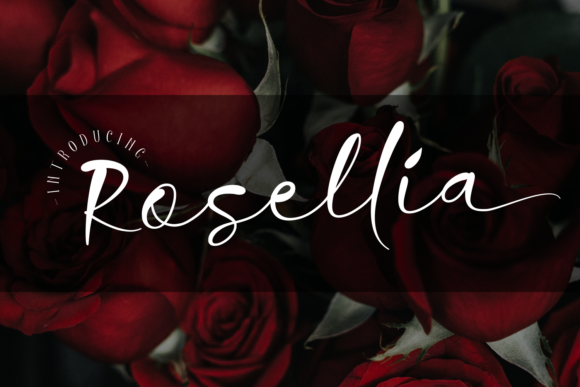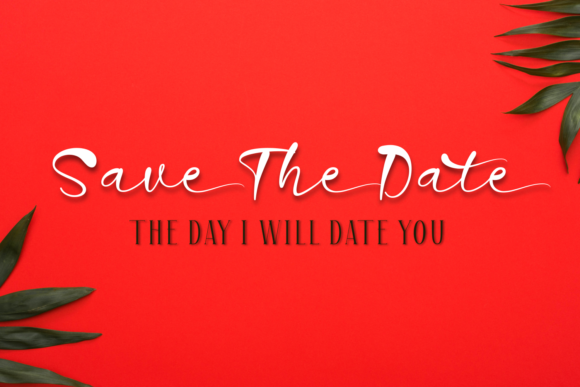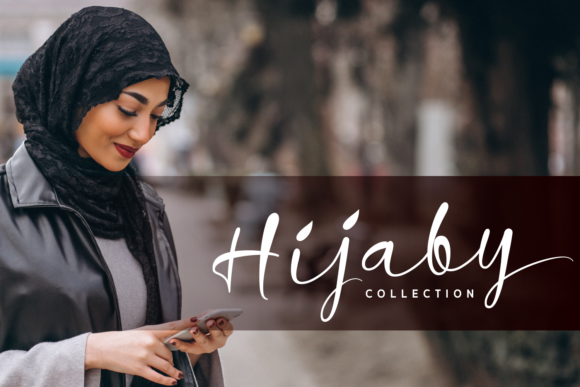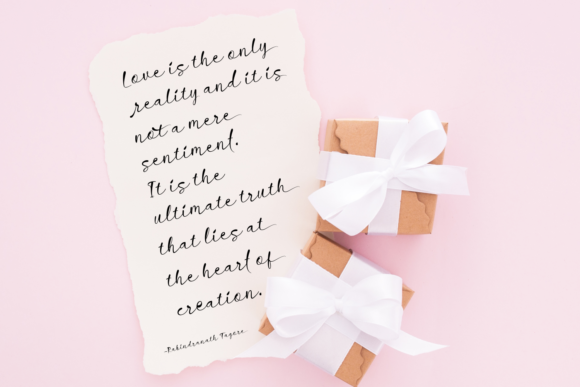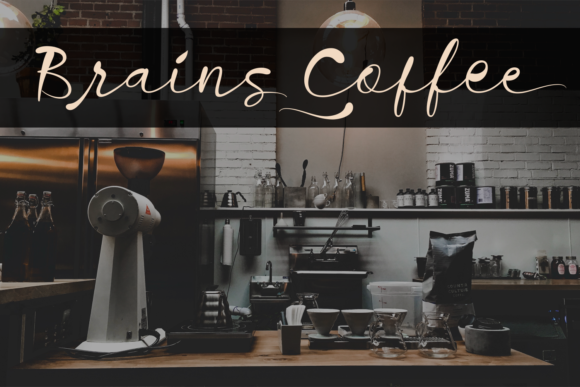
Rosellia Font
About Rosellia Font
Rosellia delivers a unique font experience with its sharp and distinct letters. Fall in love with its authentic style.